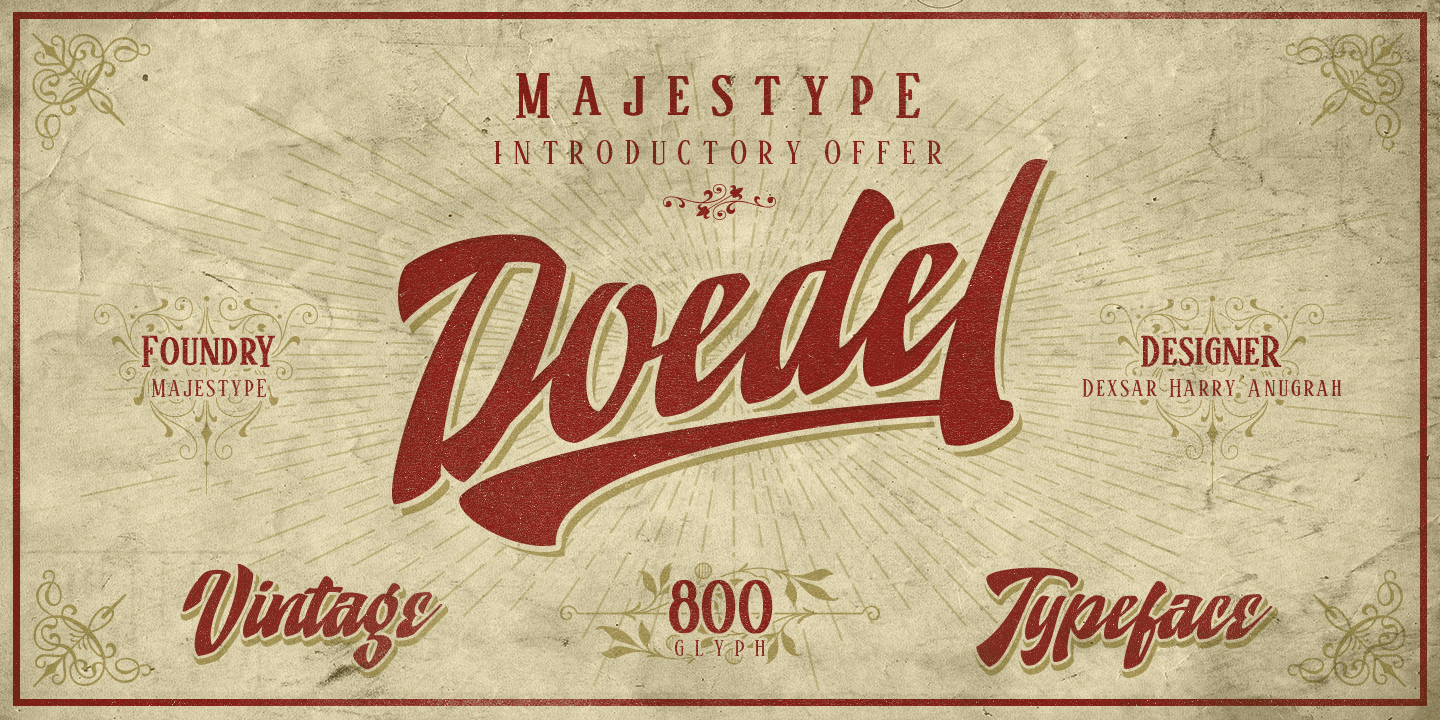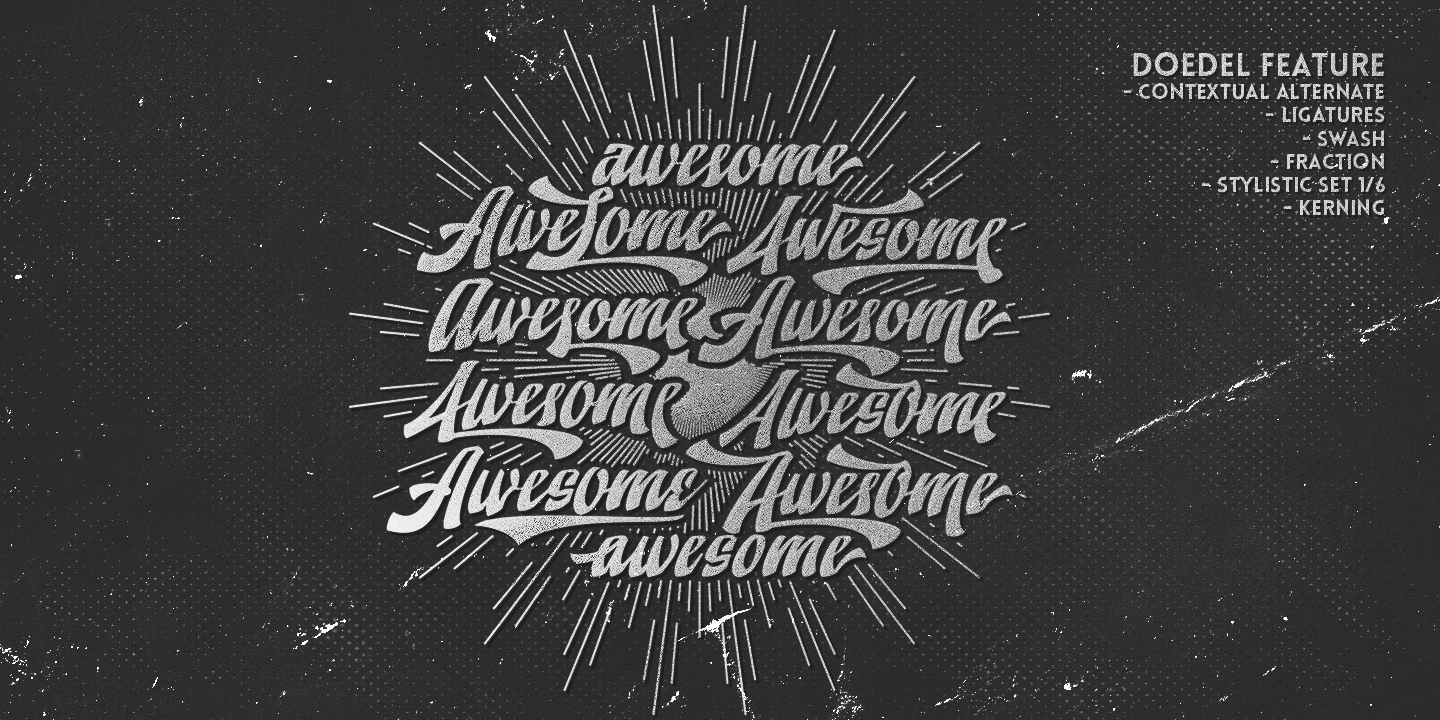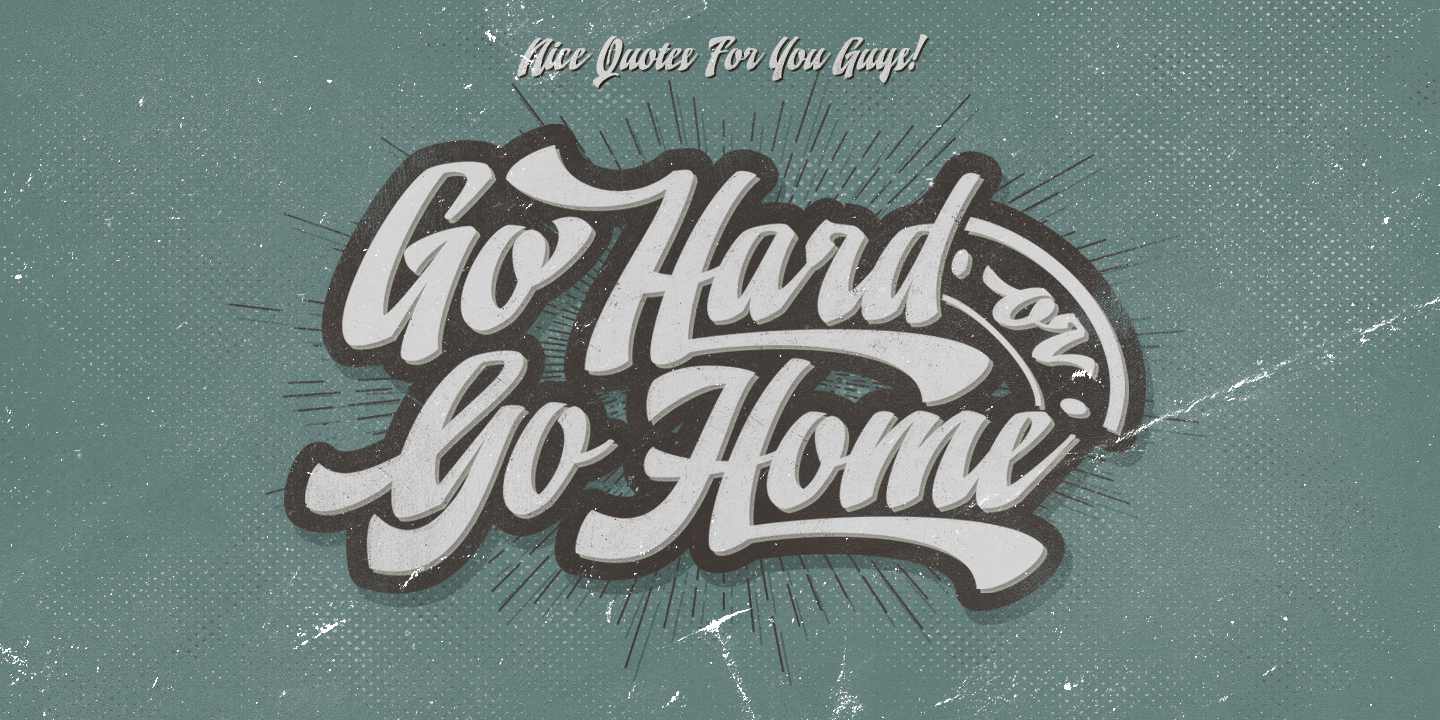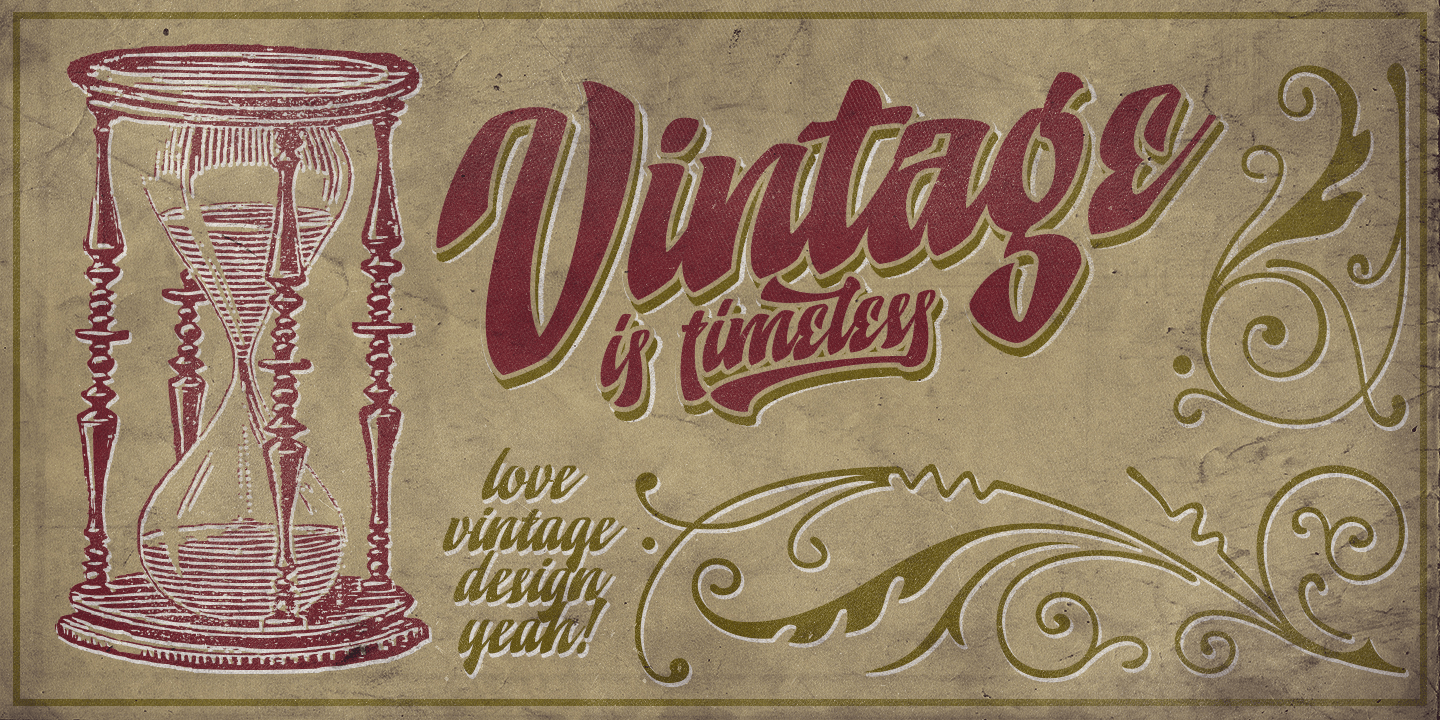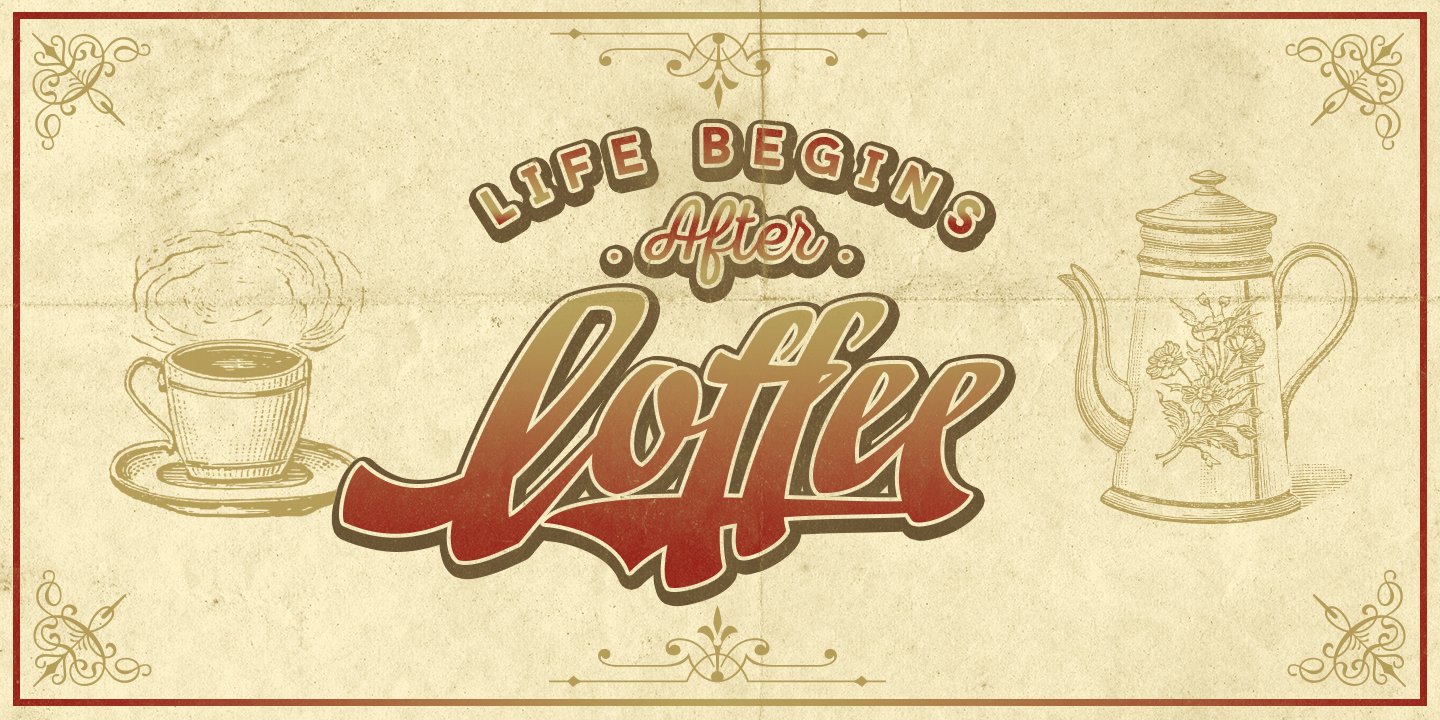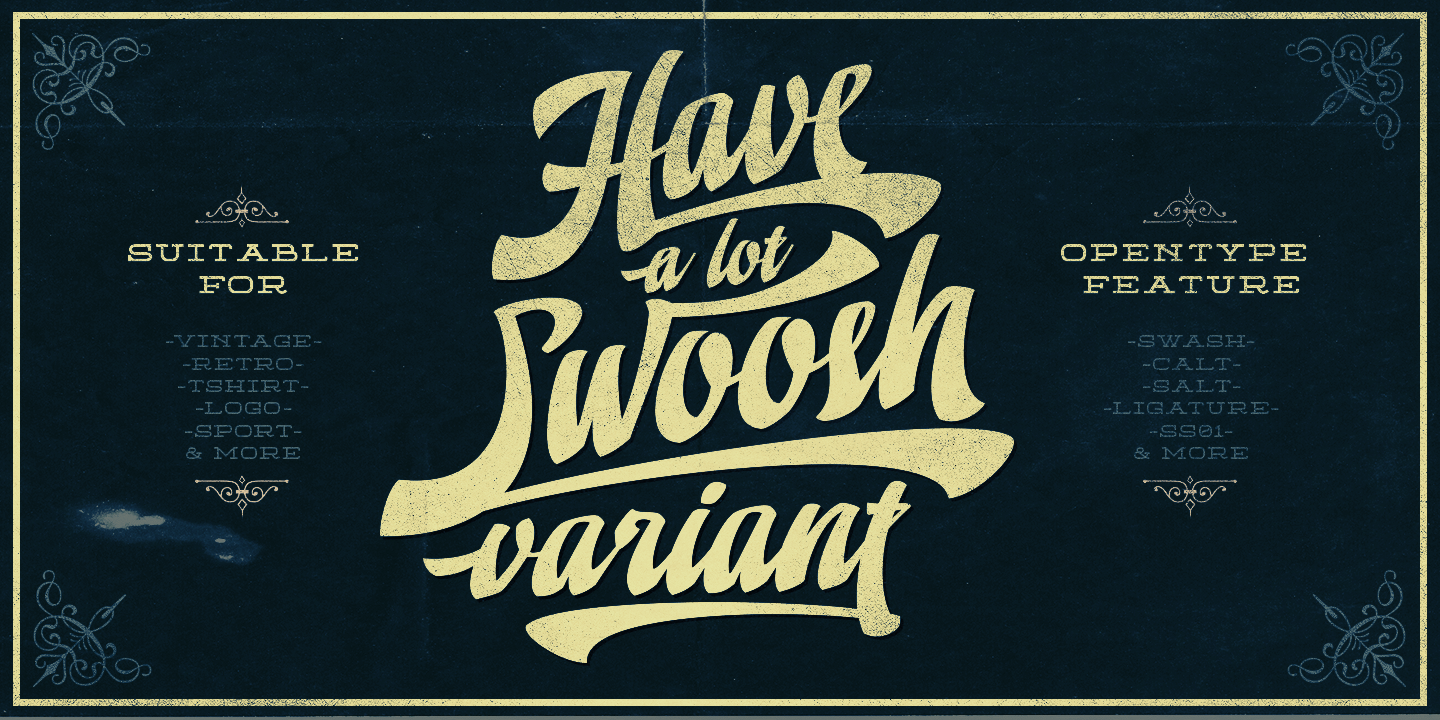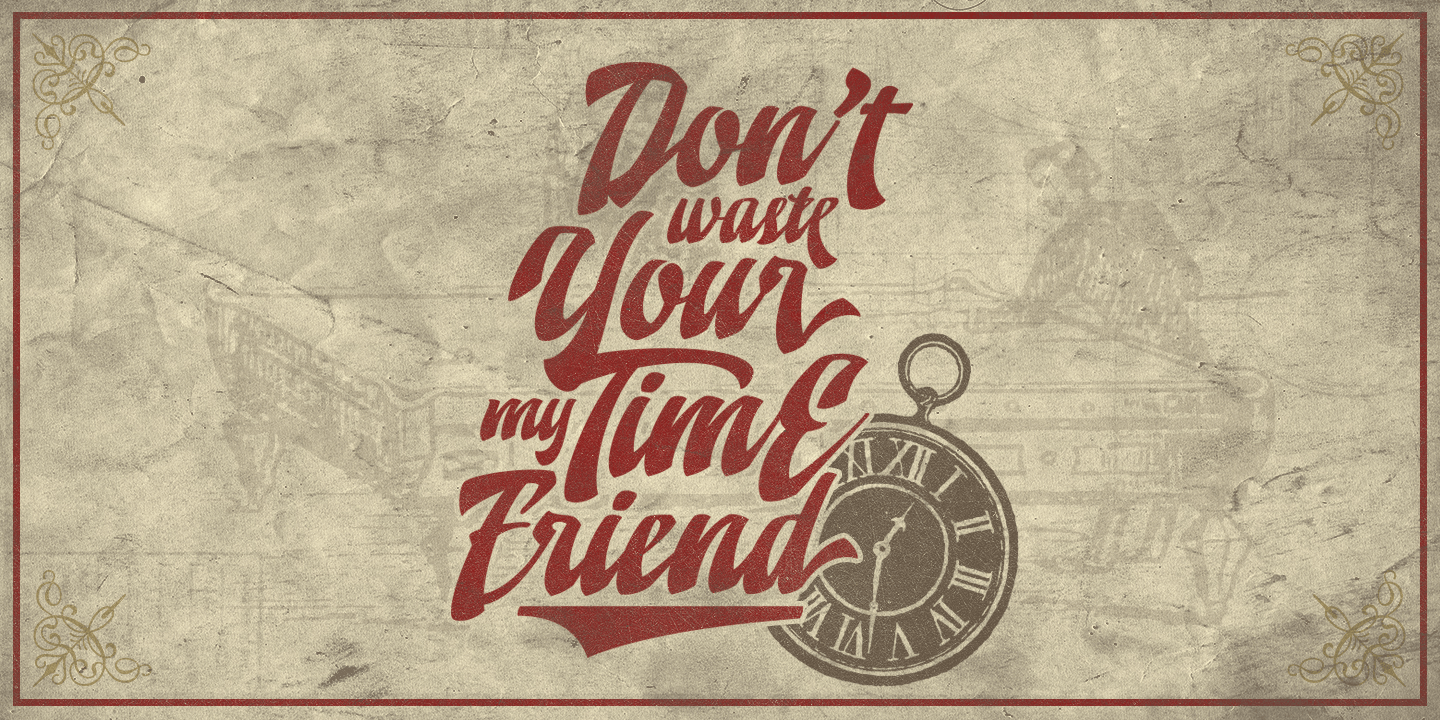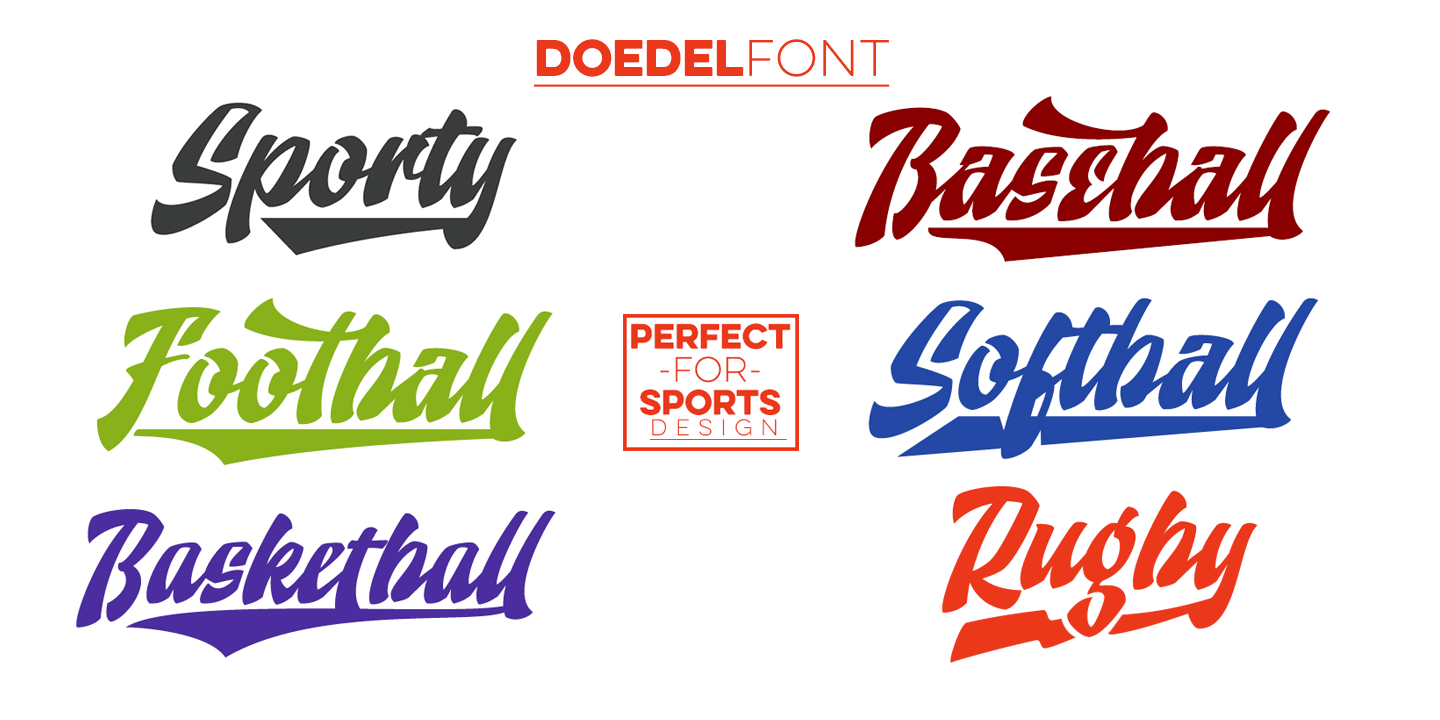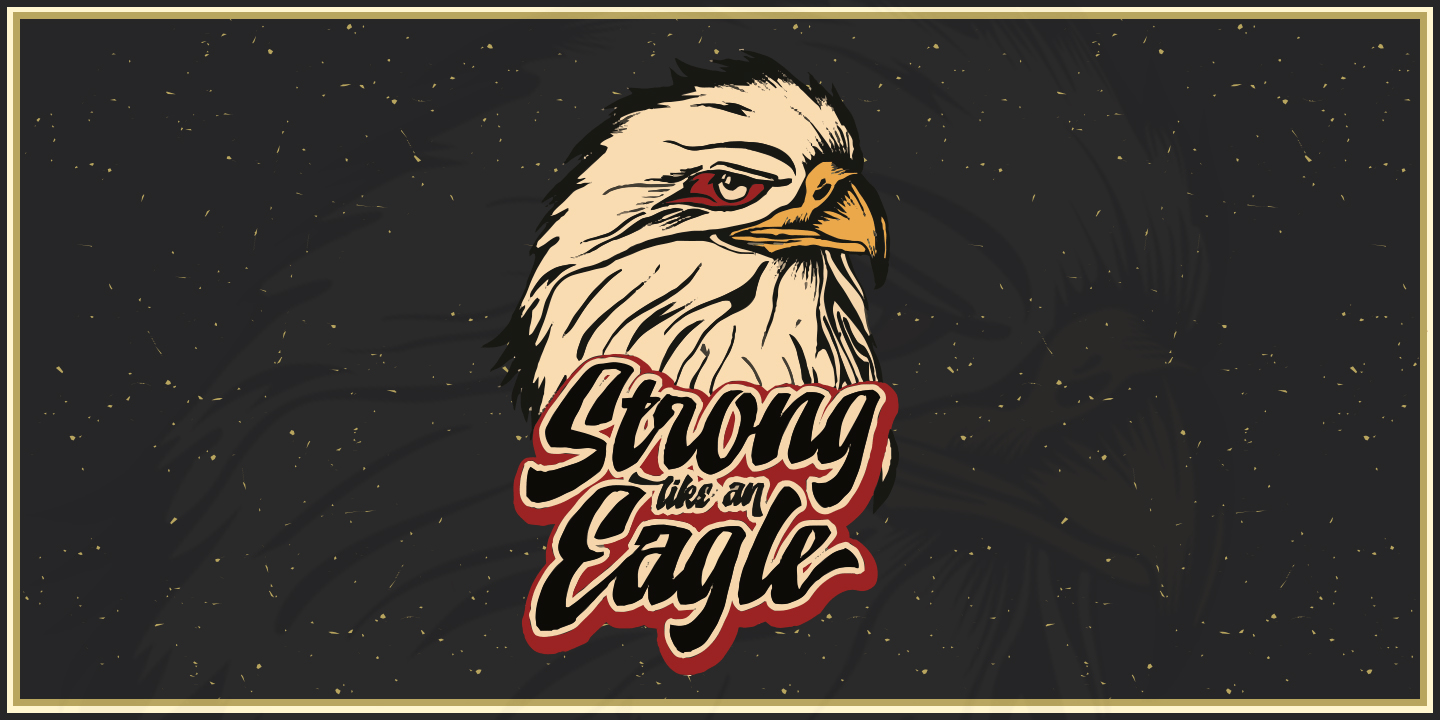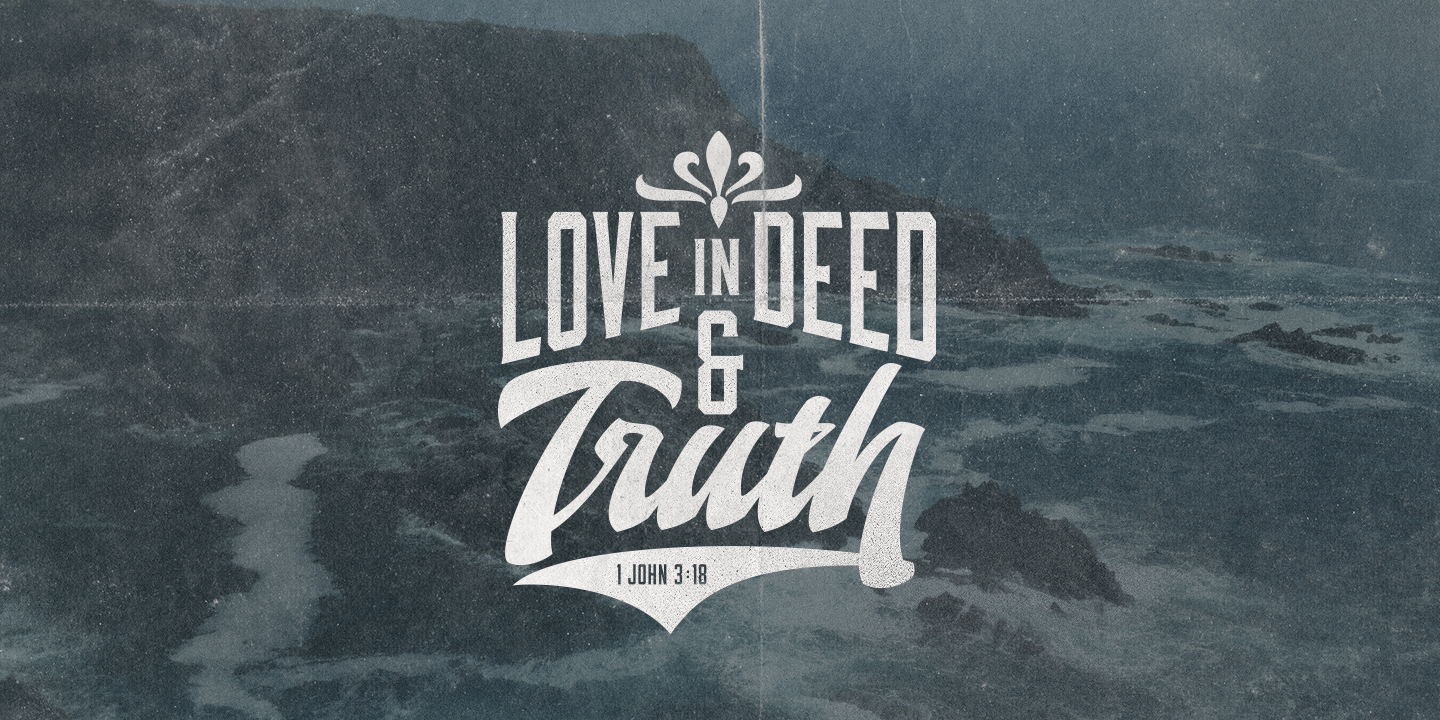
Doedel
Font Family by Majestype
Doedel is a strong script font that comes with over 800+ glyphs and is equipped with a host of OpenType features, works well at large size and making it a breeze to customize the feel of your design.
Doedel is suitable for t-shirt design, retro design, vintage design, headline, website title, logo, sport, package or etc.